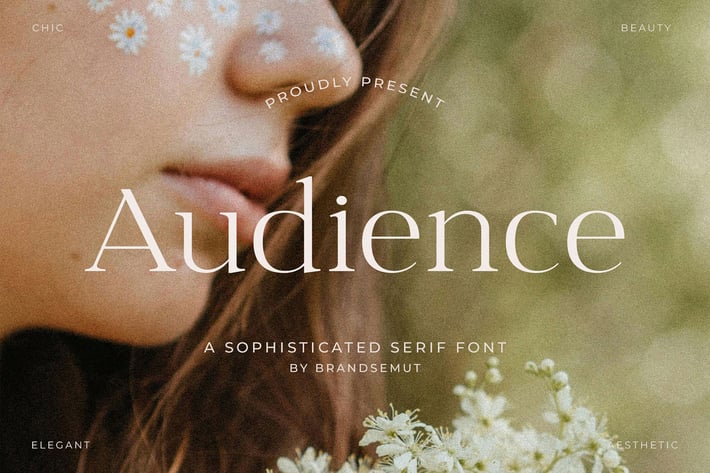
Audience - Sophisticated Serif Font
Introducing Audience Sophisticated Serif Font.
Audience is a modern and classy typeface, best used as a display for headings, logos, branding, magazines, product packaging and invitations. Audience come with clean lines and smooth curves give any project an extra touch of class.